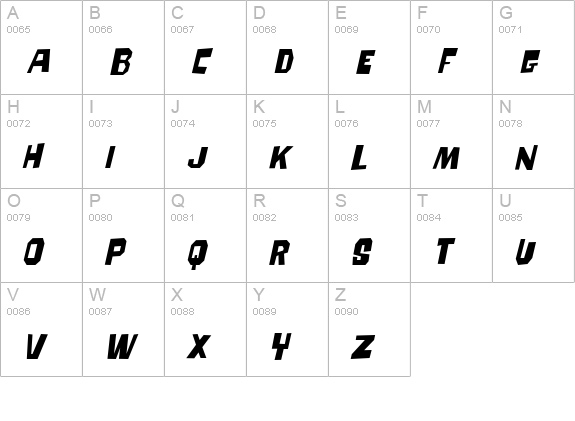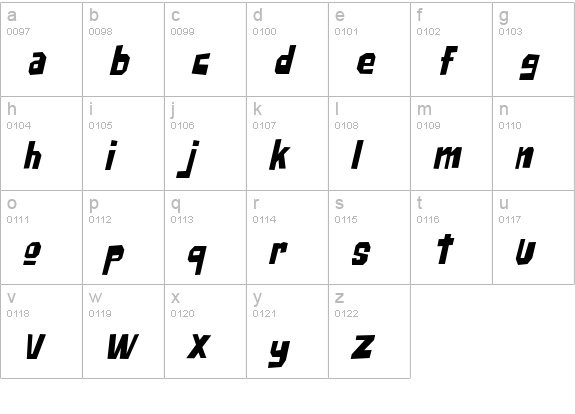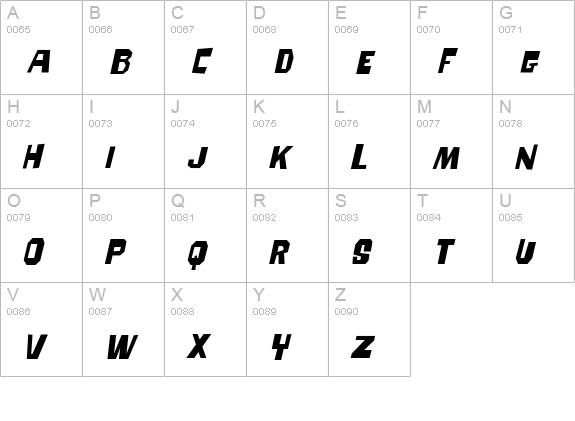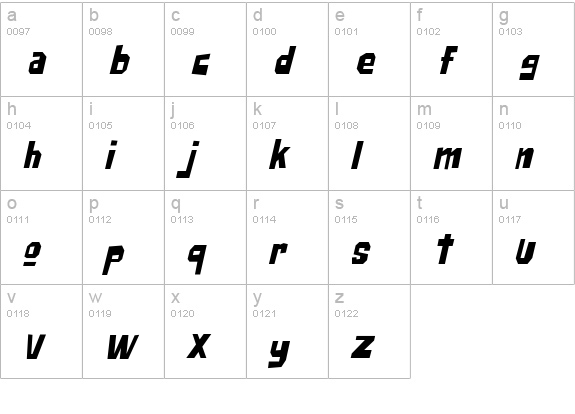
Big Chump BTN Cond Oblique Font Details
Big Chump BTN Cond Oblique is a distinctive, condensed-width, italic variant in the Big typeface family \xE2\x80\x94 well suited to design and typography projects.
Big Chump BTN Cond Oblique is a bold and eye-catching font that exudes a sense of strength and confidence. Its slanted design adds a dynamic and modern touch to any text or design project. With its thick strokes and sharp angles, this font makes a powerful statement and commands attention. What's even better is that Big Chump BTN Cond Oblique is available for free to download at FontsMarket.com. Whether you're working on a poster, logo, or any other creative project, this font is sure to make a big impact. Don't miss out on the opportunity to add this versatile and striking typeface to your collection today!